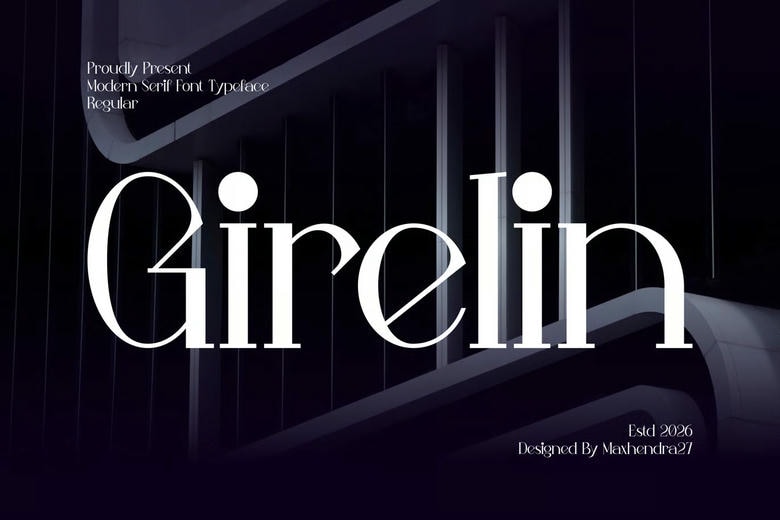
Girelin Font
Girelin is a bold typeface with classic letter shapes. It works well for creating the clean, concise look often seen in film poster production credits.
Girelin Serif Font